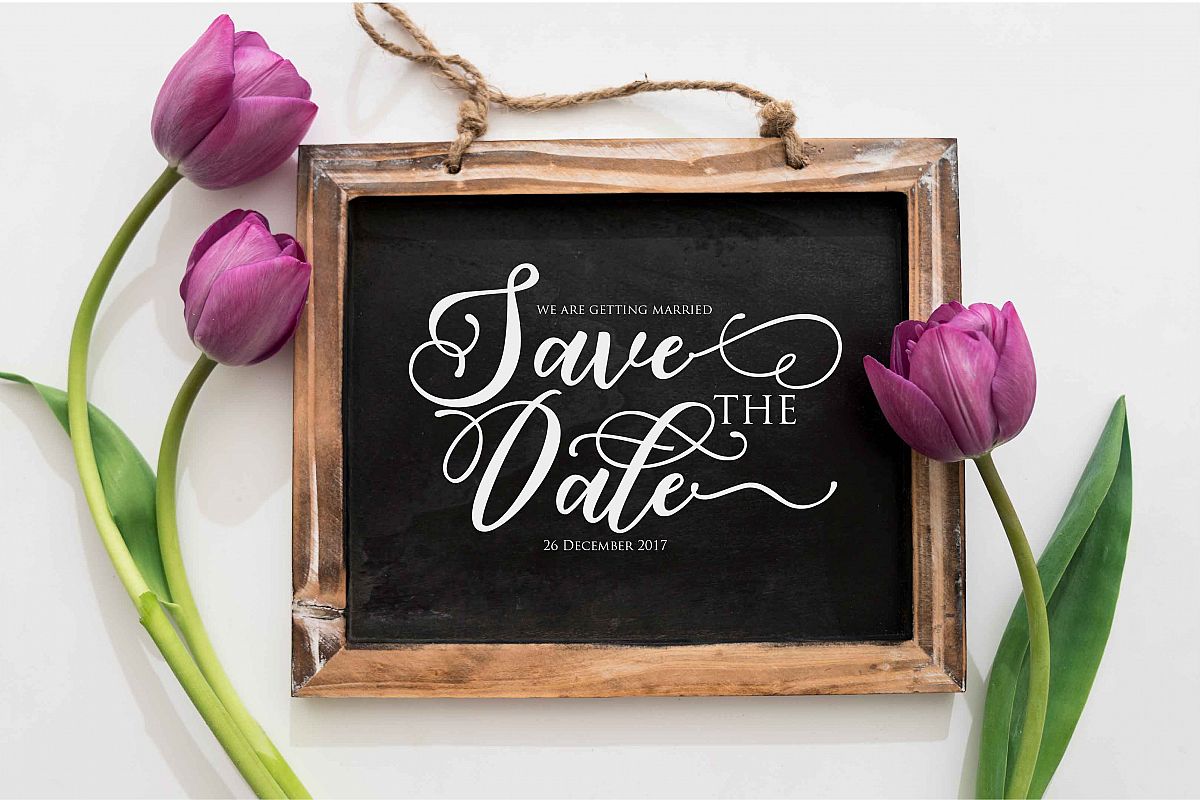
MAHLIGAI
"INTRODUCING"MAHLIGAI SCRIPT
MAHLIGAI SCRIPT is a beautiful Modern Script Font Typeface , This script will look gorgeous on all your designs, wedding invites, branding materials, logo's, t-shirt, poster, business cards, quotes and all project design other.